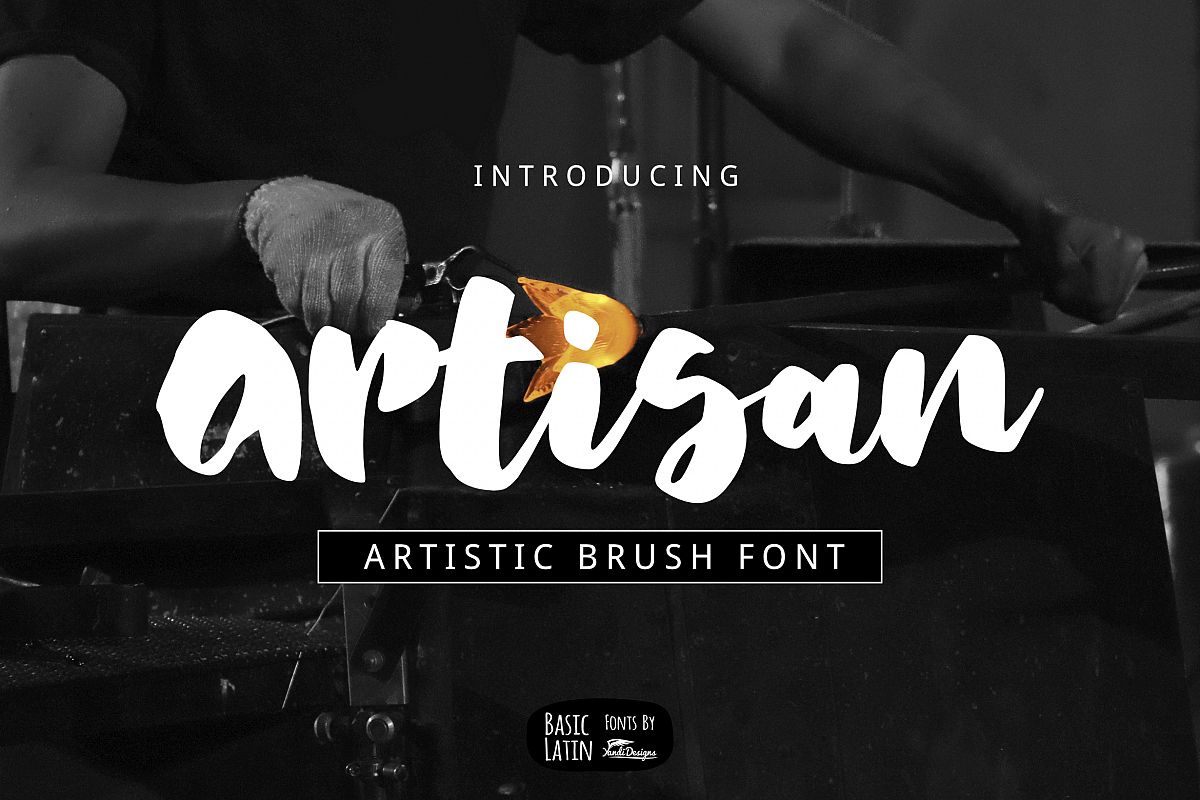
Artisan Brush Font
Artisan font is simple artistic multipurpose handmade brush font , suitable for many project children book, quotes, logo , heading , title etc.